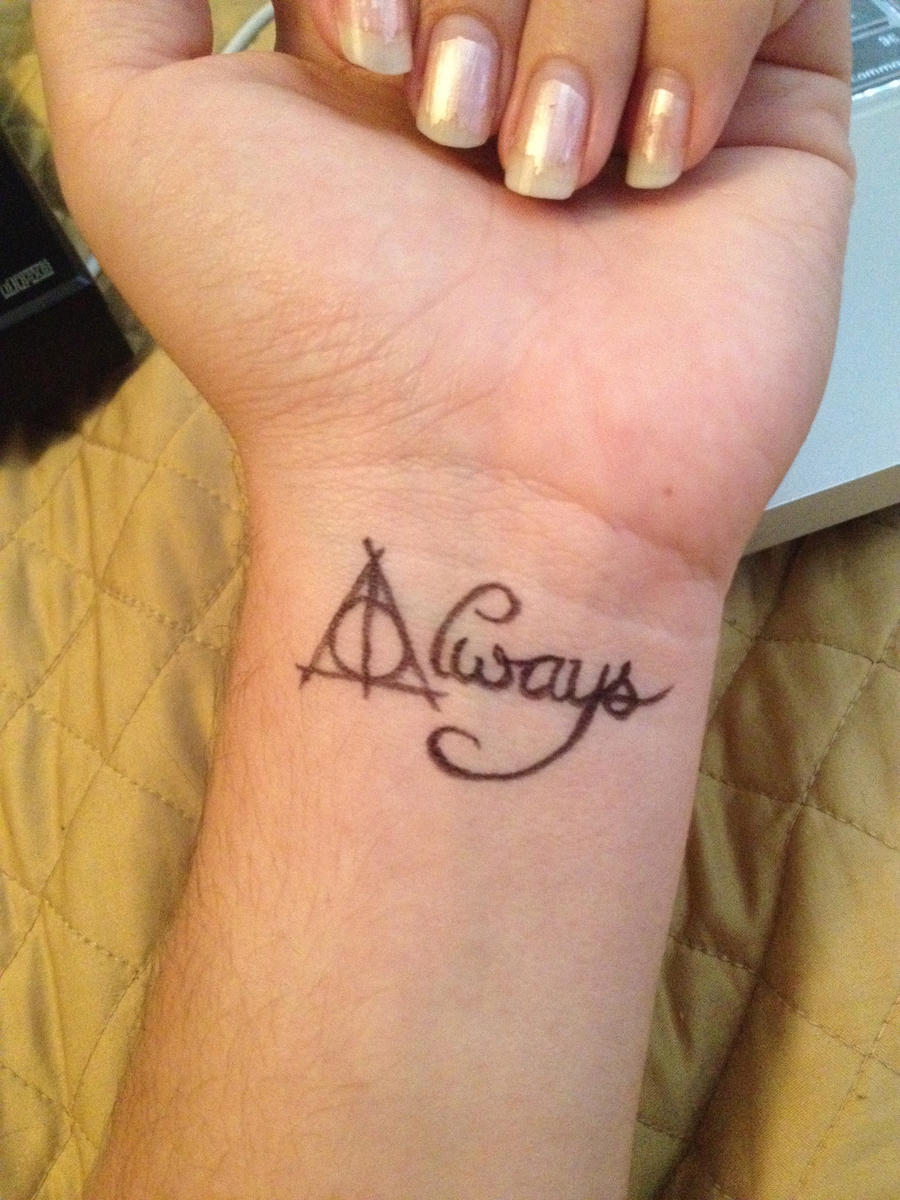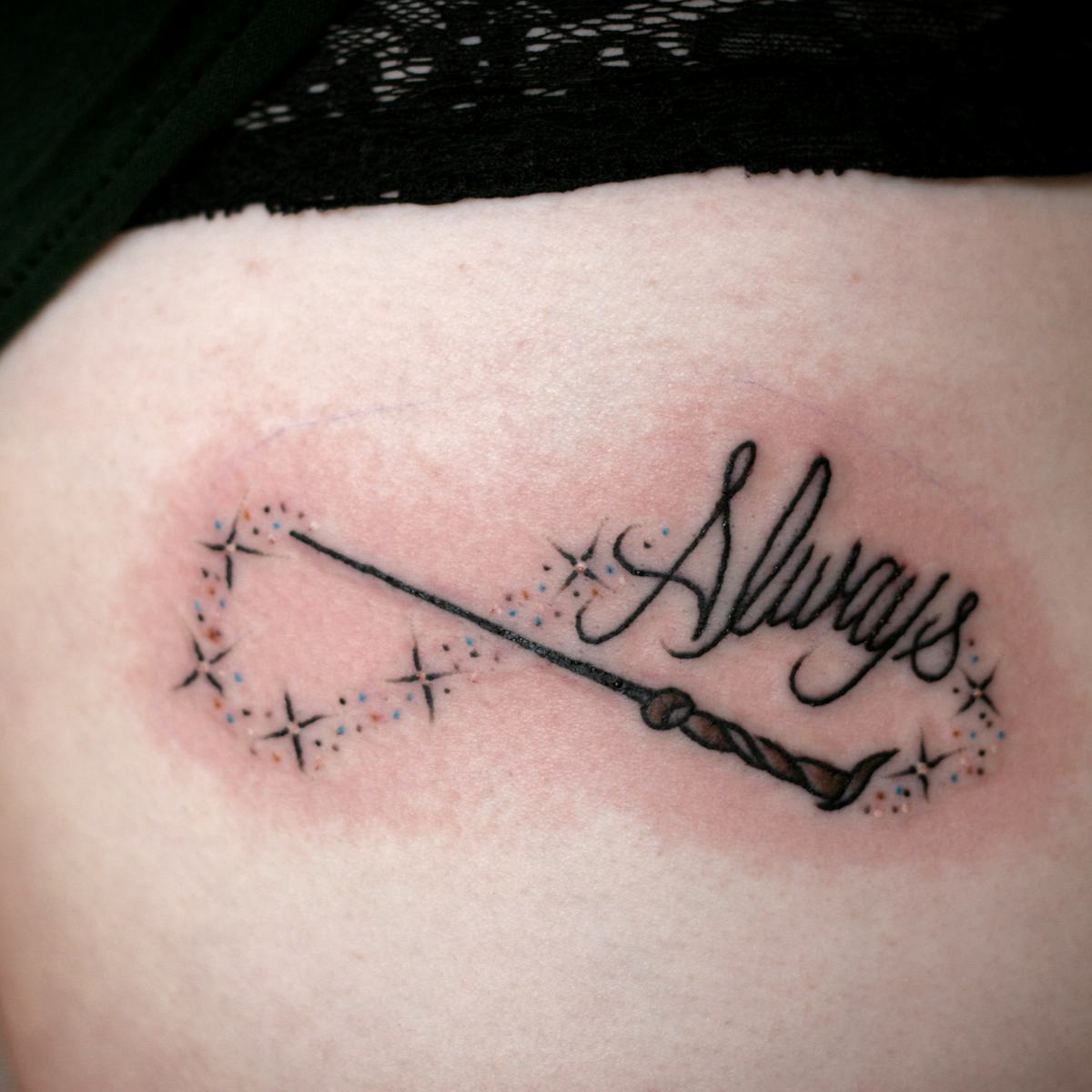
If you’re a passionate Potter fan, the always tattoo harry potter font offers a spellbinding way to showcase your love for the wizarding world. Whether on skin or as décor, it brings classic charm to everyday life.
Integrating this font into a tattoo creates an instant connection that resonates with memories of Hogwarts, Quidditch, and legendary quotes. By choosing bold lines and delicate details, each piece becomes a personal testament to timeless adventure.
Always Tattoo Harry Potter Font Ideas
Looking for a unique and magical way to express your love for Harry Potter? Try the always tattoo harry potter font — a bold, elegant design that blends classic wizardry with timeless phrases. This stylish option works beautifully on nails, skin, or even as a wearable art piece. Whether you’re a die-hard fan or just love the vibe, this font captures the essence of the wizarding world in a modern, personal way. For more inspiration on how to bring the Harry Potter universe to life through tattoos, check out our collection of deathly hallows harry potter tattoo designs or explore female harry potter tattoo ideas.
The always tattoo harry potter font is a standout choice — simple yet powerful, with a touch of magic that feels both familiar and fresh.
Perfect for fans who want to wear their love for the series proudly, this font adds a personal, enchanting touch to any design.
Always Tattoo Harry Potter Font in Style
Love the magic of Harry Potter? Try the always tattoo harry potter font to bring your favorite spells and characters to life. Whether it’s on nails, skin, or stationery, this design captures the charm of the wizarding world with bold, elegant typography. A perfect blend of nostalgia and modern flair—ideal for fans who want to wear their fandom proudly. Especially inspired by the iconic Deathly Hallows Temporary Tattoo, which proves how timeless these designs remain.
Perfect for fans who want to express their love of Harry Potter through stylish, meaningful tattoos.
Bring the magic to your daily look with a bold, enchanting font that feels both personal and powerful.
Always Tattoo Harry Potter Font Ideas
Bring the magic of Harry Potter to your skin with bold, enchanting tattoo designs that blend classic wizardry with modern style. From enchanted runes to spell-casting scripts, always tattoo harry potter font offers a unique way to express your love for the series. These designs are perfect for fans who want something meaningful, personal, and full of charm—each piece feels like a piece of the wizarding world worn proudly on your body. Whether you’re going for subtle elegance or bold fantasy, the always tattoo harry potter font delivers both style and story.
Choose a design that captures your favorite spells or characters with the always tattoo harry potter font—simple, powerful, and instantly recognizable.
Perfect for fans who want magic without the wand, the always tattoo harry potter font adds a touch of whimsy and nostalgia to any tattoo.
Always Tattoo Harry Potter Font? Here’s Why
Looking for a unique and magical way to express your love for Hogwarts? Always tattoo Harry Potter font brings the wizarding world to life on your skin—perfect for fans who want something bold, nostalgic, and deeply personal. Whether it’s a quote or a simple spell, this font captures the charm of the series in a way that feels both timeless and authentic. Inspired by the original books and films, it’s more than just text—it’s a piece of magic worn proudly.
Always tattoo Harry Potter font lets you carry a piece of Hogwarts with you every day. It’s not just a design—it’s a personal connection to the world you love.
Choose the right quote and let the font breathe life into your skin. It’s more than style—it’s a story.
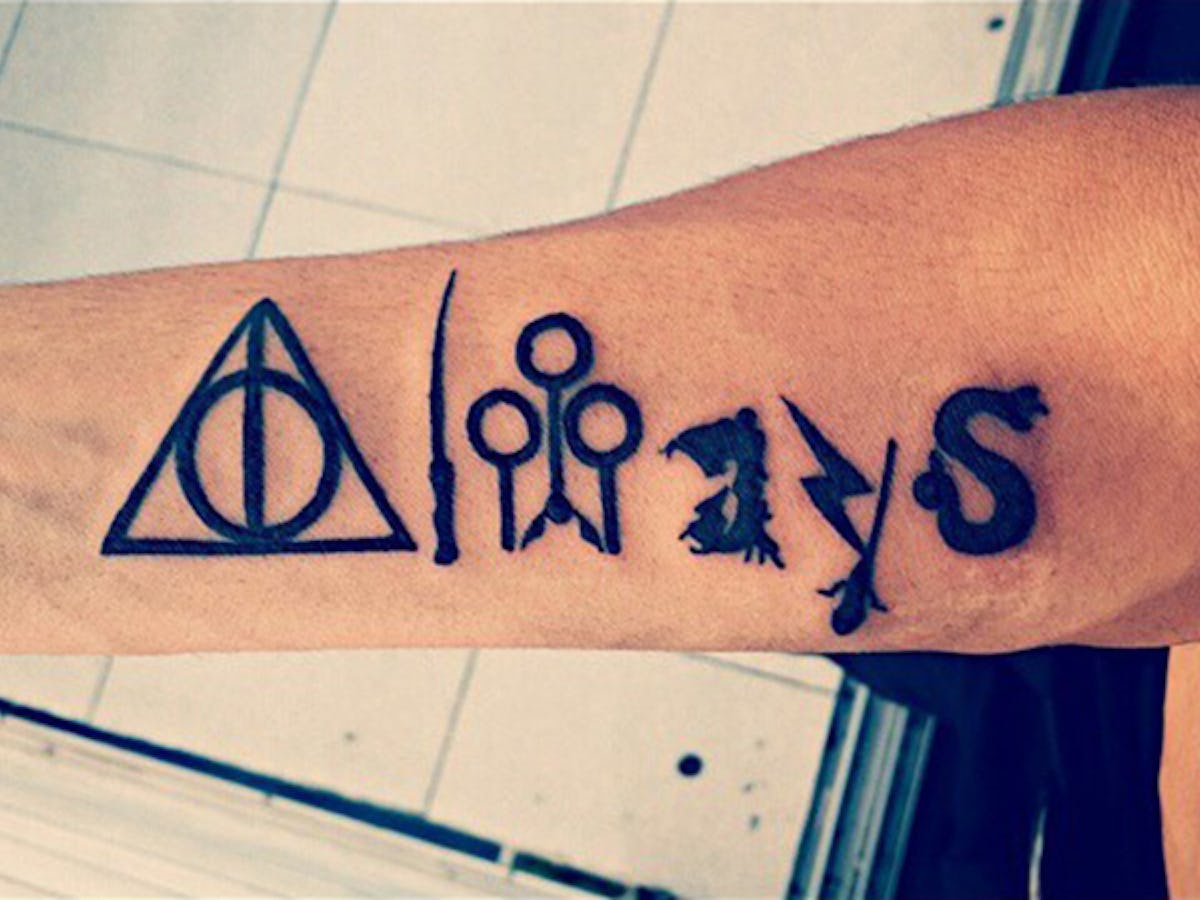
Always Tattoo Harry Potter Font Ideas
Love the magic of Harry Potter? Try always tattoo harry potter font for a unique, spellbinding touch on your skin. This design blends classic wizardry with modern tattoo artistry, perfect for fans who want to carry their favorite characters with them every day. Whether it’s a subtle name or a full spell, the always tattoo harry potter font brings a touch of whimsy and nostalgia. It’s a great way to express your fandom in a bold, personal way—like a living piece of wizarding lore. Always Temporary Tattoo is a great alternative if you’re unsure about a permanent mark.
Perfect for fans who want a magical touch without the commitment—always tattoo harry potter font offers a stylish, temporary way to show off your love for the series.
Easy to apply, instantly magical—great for parties or just adding a little wizardry to your look.
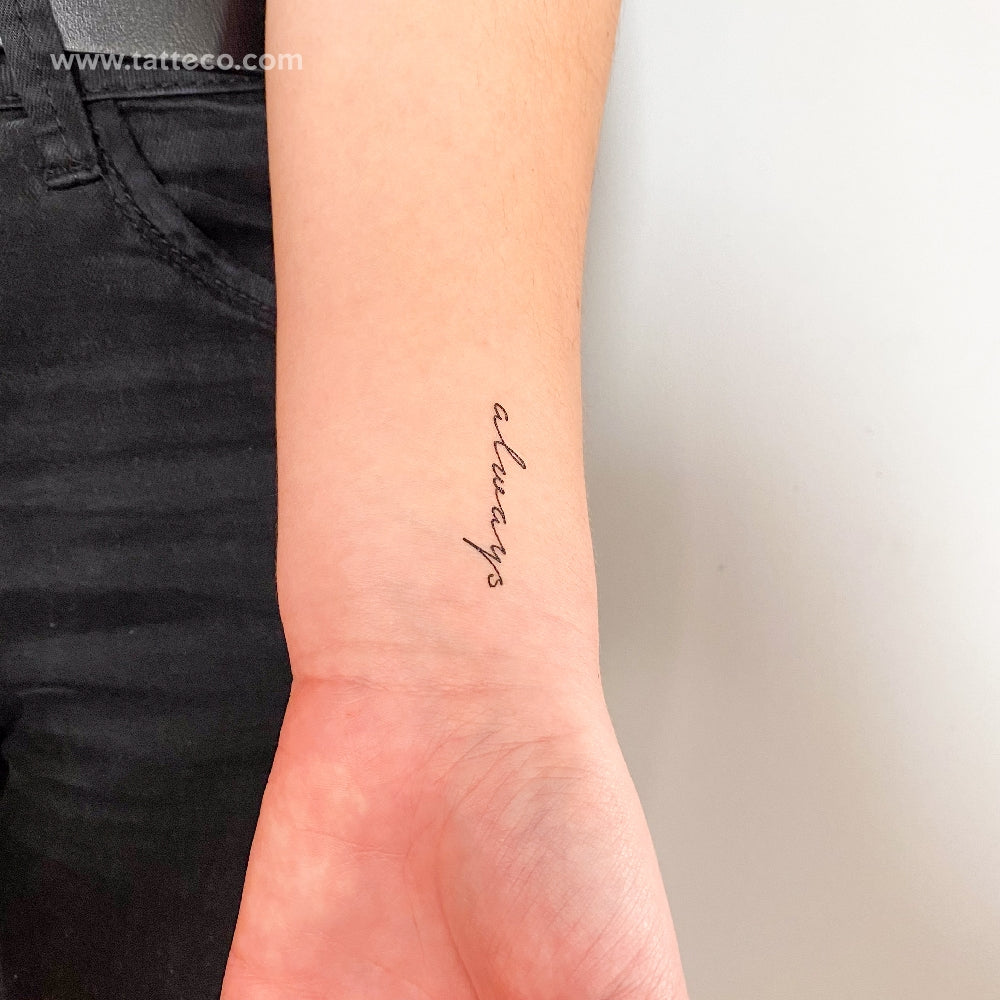
Always Harry Potter Font Tattoo Idea
Bring the magic of Harry Potter to your skin with a bold, timeless tattoo featuring the iconic ‘Always’ lettering. This Harry Potter font design captures the spirit of the wizarding world, making it a perfect choice for a hand tattoo that tells a story. Whether you’re a fan or just love classic fantasy vibes, this tattoo blends nostalgia with personal meaning. The elegant, classic font ensures it stands out while staying true to the original charm of the books and films.
Think of it as a tribute to loyalty and magic. The font adds depth and character, turning a simple phrase into a powerful symbol. If you’re inspired by the Deathly Hallows motif, explore more in our deathly hallows harry potter tattoo collection.
In sum, the always tattoo harry potter font offers more than ink—it’s a portal to cherished moments and unending wonder. Whether it adorns a wrist or a chest, this design weaves modern artistry with the enduring spirit of the Harry Potter saga. Embrace the magic and let each line echo your personal spell.